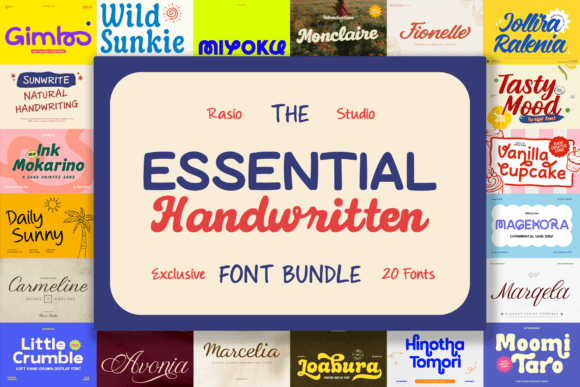
Give Your Designs a Personal Touch with the Essential Handwritten Bundle Font
There’s something special about a handwritten note from a loved one – the imperfections, the character, the warmth it conveys. As designers, we’re always on the lookout for ways to infuse our work with that same human touch. That’s where the Essential Handwritten Font Bundle comes in – a collection of 20 unique fonts designed to bring a natural, hand-drawn feel to your creative projects.
This versatile font bundle is perfect for designers who want to add a playful, organic charm to their designs. With styles ranging from casual lettering to sweet script fonts, it’s easy to find the perfect font to match your project’s tone and personality. Whether you’re working on branding, packaging, social media, or digital artwork, the Essential Handwritten Bundle Font is sure to bring a smile to your audience’s faces.
Key Features of Essential Handwritten Bundle Font
- Unique Characteristics: Handwritten, cursive, and script-like fonts with a personal touch
Essential Handwritten Bundle Font Review
I recently had the chance to work with the Essential Handwritten Bundle Font, and I have to say it’s a great addition to any designer’s toolkit. ✨ Here are some of the things that stood out to me:
- Unique and elegant design: This font has a beautiful, handwritten feel that’s perfect for adding a touch of personality to your designs.
- Highly customizable: The font includes a range of styles and variations, making it easy to customize to suit your specific needs.
- Great for creative projects: Whether you’re designing a blog post, a social media graphic, or a marketing brochure, this font is sure to add a touch of creativity and flair.
That being said, there are a few limitations to keep in mind:
- May not be suitable for formal or professional documents: While the font is great for creative projects, it may not be the best choice for formal documents or presentations.
- May be difficult to read at small sizes: As with any handwritten font, this one can be tricky to read at small sizes, so be sure to test it out before using it in a design.
- Not as versatile as some other fonts: While the font includes a range of styles and variations, it may not be as versatile as some other fonts on the market.
Overall, I’m really impressed with the Essential Handwritten Bundle Font. It’s a great choice for designers who want to add a touch of creativity and personality to their designs. With a little bit of creativity and experimentation, I’m sure you’ll be able to get the most out of this fantastic font. ✨
The Essential Handwritten Bundle Font is ideal for:
Creating invitations and event materials
Designing digital products, such as ebooks and courses
Developing branding and marketing materials